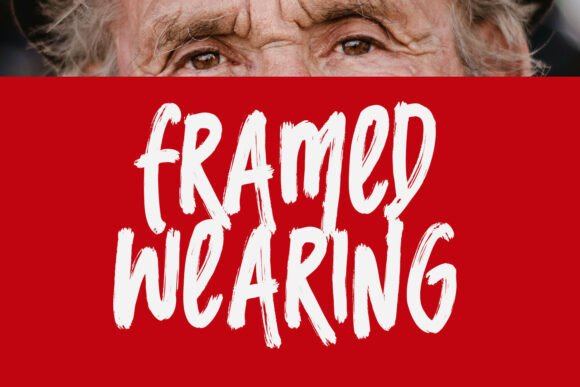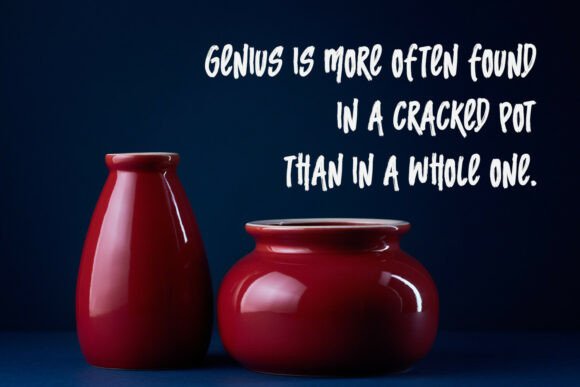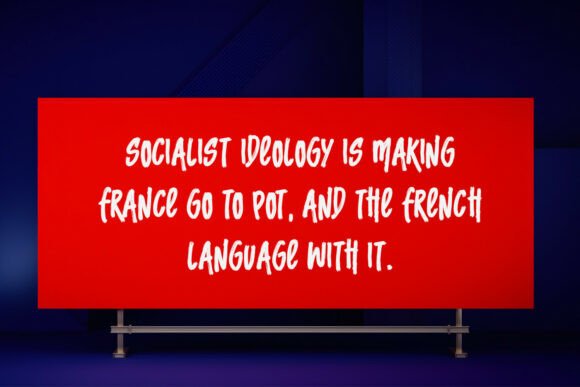
Introduction to Damble Font
Damble is a bold brush font crafted with powerful strokes and expressive hand-painted texture.
Designed to create strong visual impact, this font features thick brush forms and dynamic movement that bring energy and confidence to any design Its rugged edges and bold structure deliver a striking presence while maintaining solid readability.
Damble Font offers exceptional quality and versatility, making it a valuable addition to your design toolkit. Whether you’re creating for personal projects or commercial use, Damble Font delivers professional results.